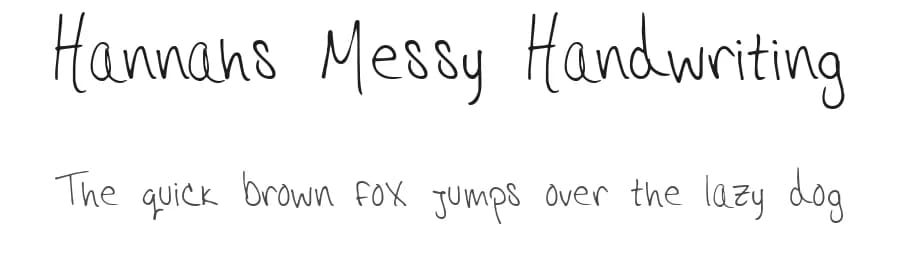
About Hannahs Messy Handwriting Font
My first font ever- MY HANDWRITING!
Hannahs Messy Handwriting Font is a script font that shines as a display or heading face. Pair it with a clean sans-serif or serif font for body text β the contrast creates a clear hierarchy while the two styles stay balanced and easy to read.